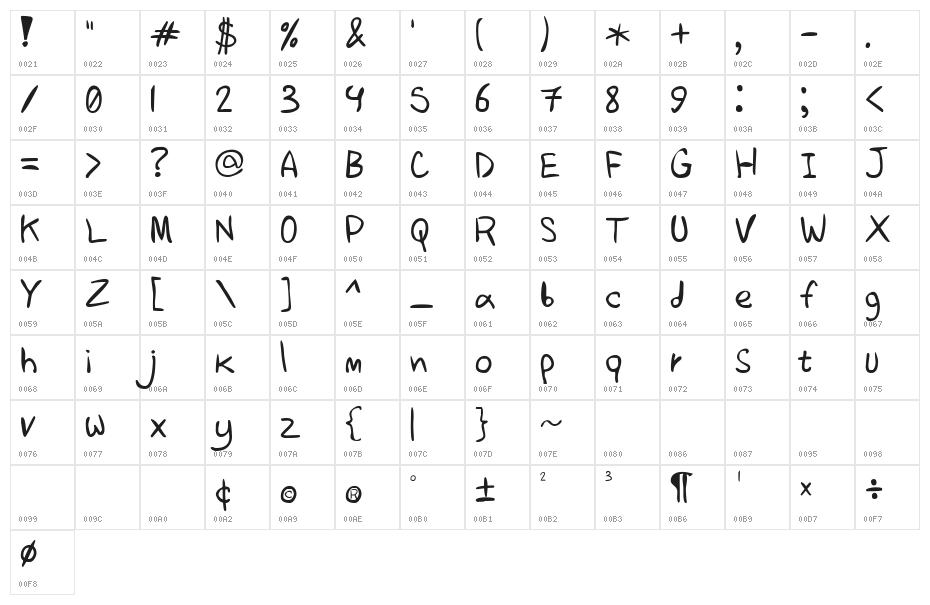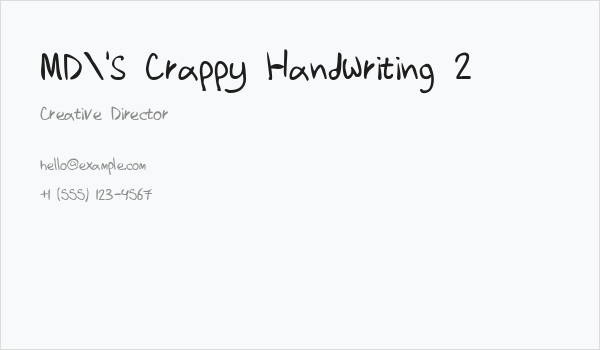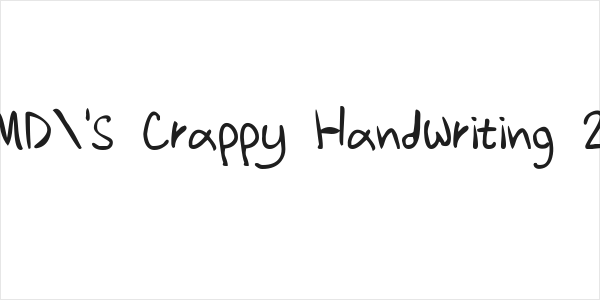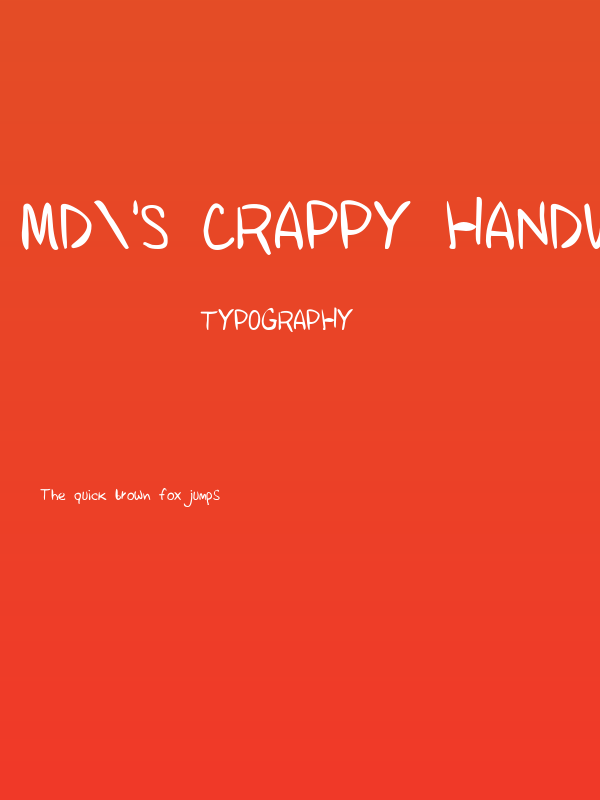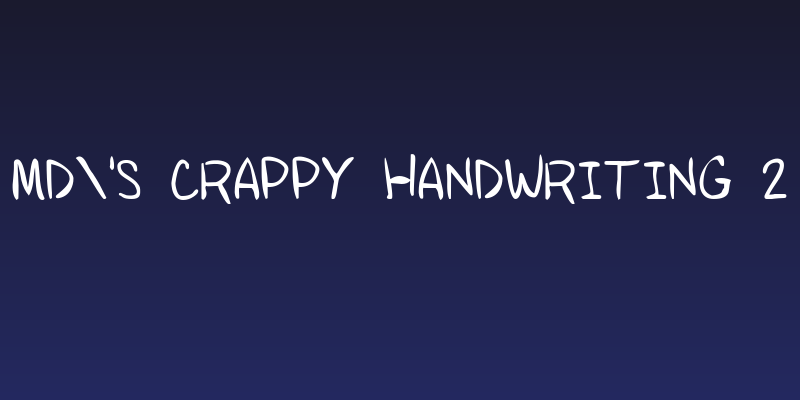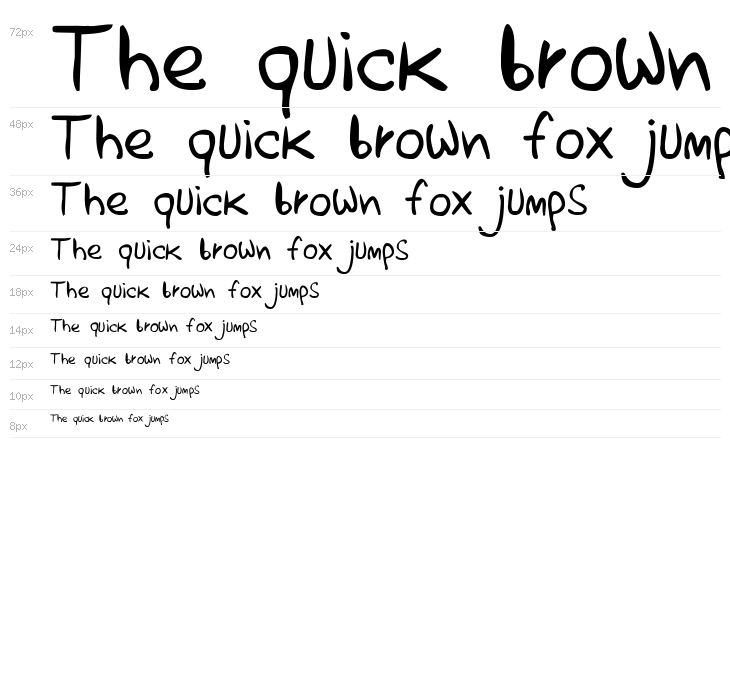
MD's Crappy Handwriting 2 Font
MD's Crappy Handwriting 2 Description
This font exudes a playful and casual vibe, reminiscent of authentic handwriting. The letters are irregular and slightly tilted, adding a whimsical touch. The strokes are uneven, with varying thickness that gives it a natural, hand-drawn appearance. The uppercase and lowercase letters maintain a consistent style, while the numbers and special characters blend seamlessly with the overall design. This font is perfect for projects that require a personal and informal feel, such as greeting cards, children's books, or creative posters.
| Proposed Projects | Ideal for greeting cards, children's books, creative posters, and casual branding. |